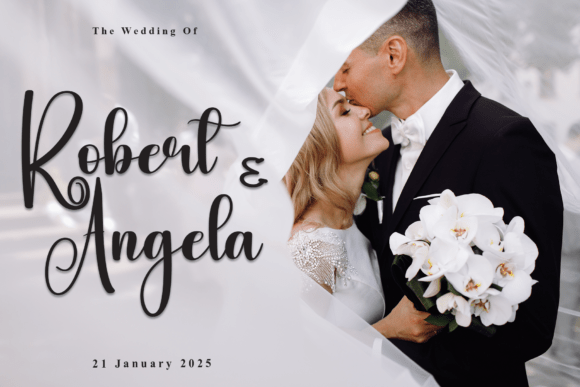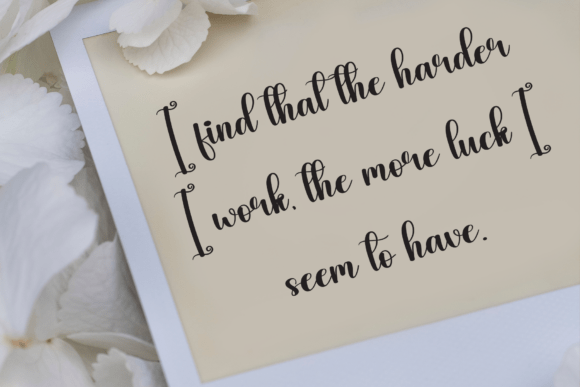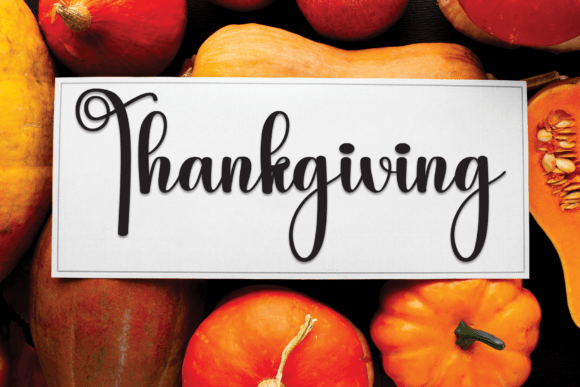
Introduction to Simple Blooming Font
Introducing a charming and delightful handwritten display font that embraces a touch of sweetness and friendliness.
With its amiable curves and playful feel, this font is expertly suited for composing wedding invitations, crafting cards or enhancing any design project that calls for a touch of whimsy and joy Dive into the world of creative typography with this heartwarming font that effortlessly infuses an element of fun into every design.
Why Choose Simple Blooming Font?
Simple Blooming Font offers exceptional quality and versatility, making it a valuable addition to your design toolkit. Whether you’re creating for personal projects or commercial use, Simple Blooming Font delivers professional results.